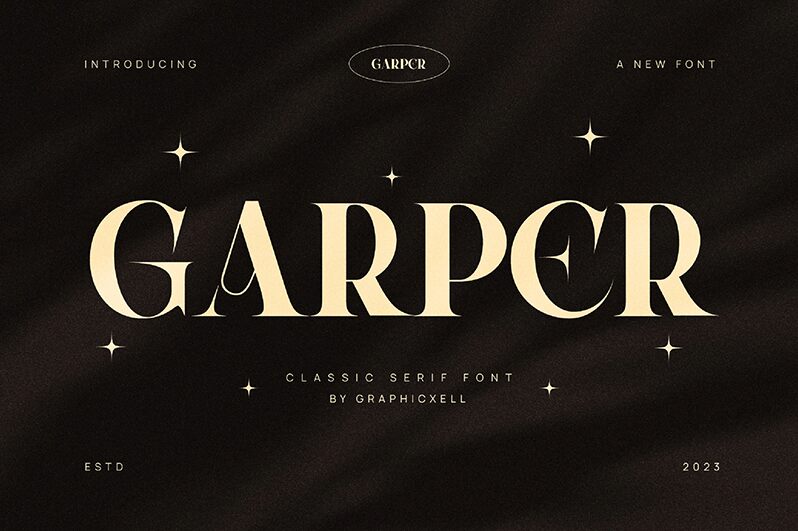
Garper font by Graphicxell is a classic serif type design perfect for giving an edge to your artistic projects. This free font’s characters carry traditional elements with a sophisticated and fancy flourish. With an elegant style and a vintage-inspired feel, Garper is heavily decorative yet harmonious and versatile, hence perfectly suitable for general usage.
Refined, expressive, and luxurious, the font is extremely pleasant especially in headings or logo designs. With its dramatic flair, Garper will look timeless and suitable for wedding invitations, cafe menus, product packaging, magazine cover titles, poster designs, clothing staples like t-shirts, and more. Since this display font is highly decorative, your text doesn’t require the addition of extra shapes or illustrations.